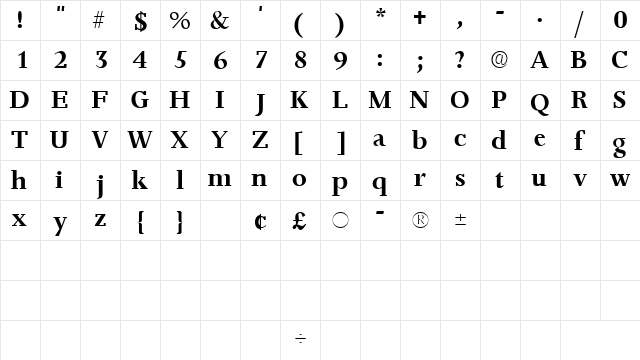
JuxtaSSK Regular Font Preview
JuxtaSSK Regular
JuxtaSSK Regular Font Details
Design Context for JuxtaSSK Typeface
JuxtaSSK is a composed and adaptable typeface that performs quietly and consistently across a wide range of design contexts.